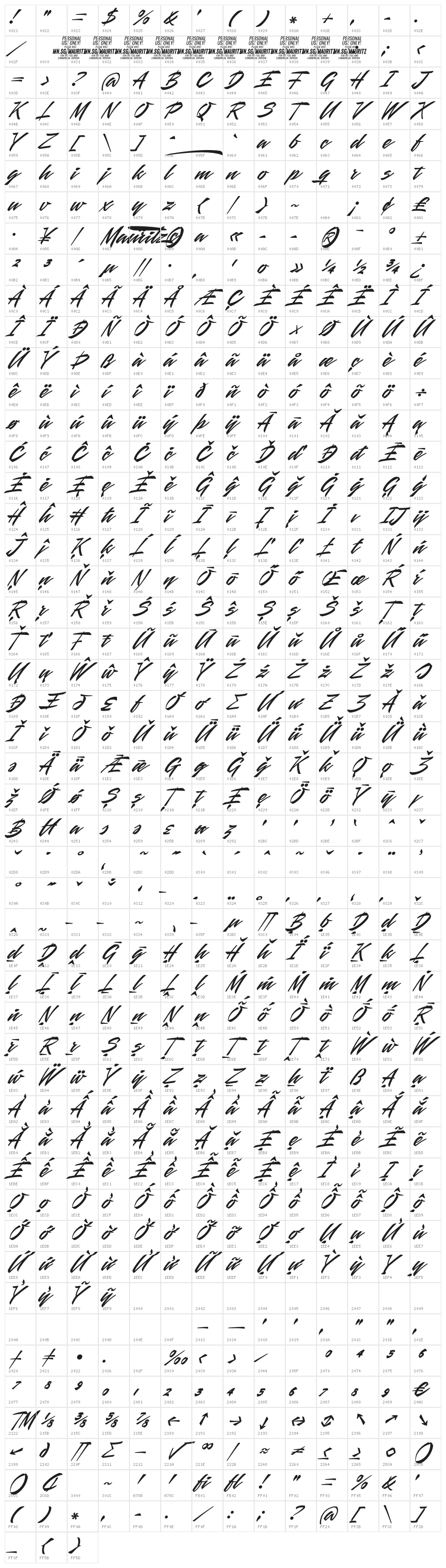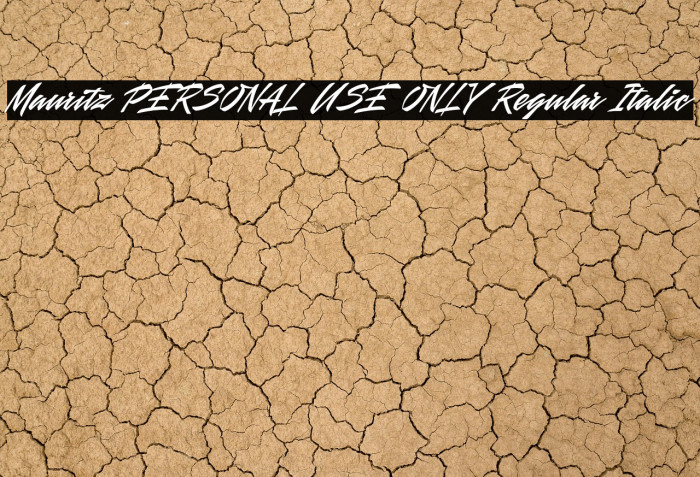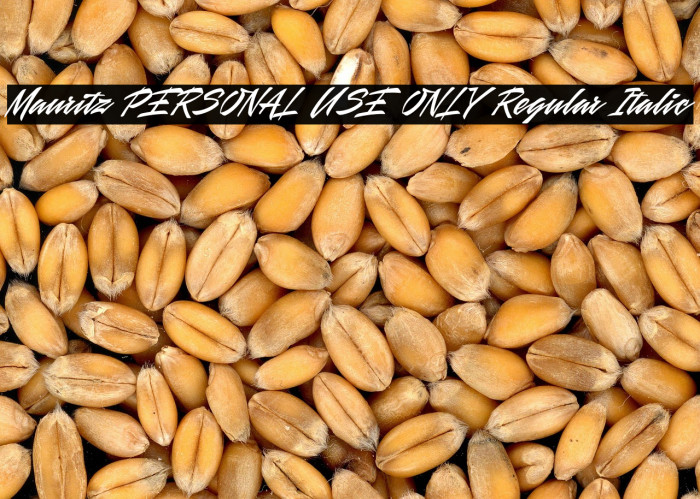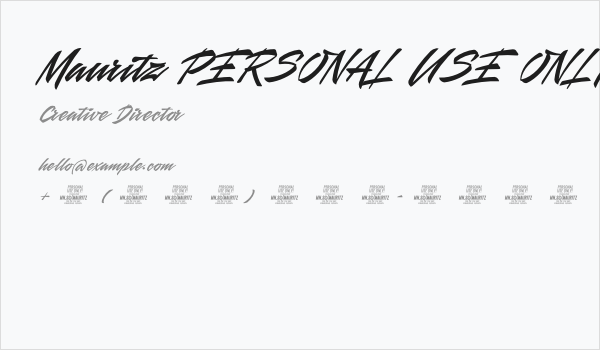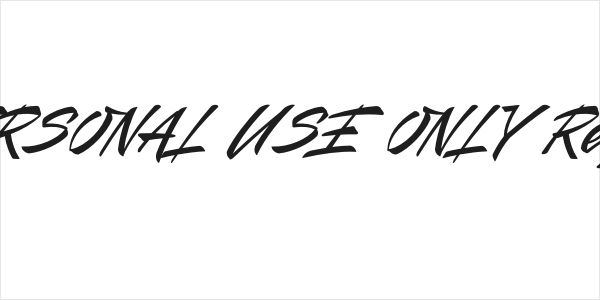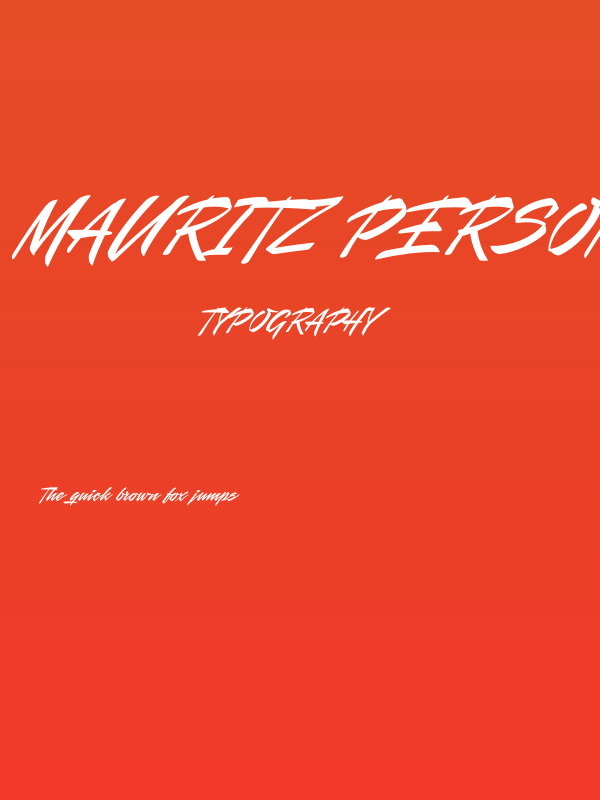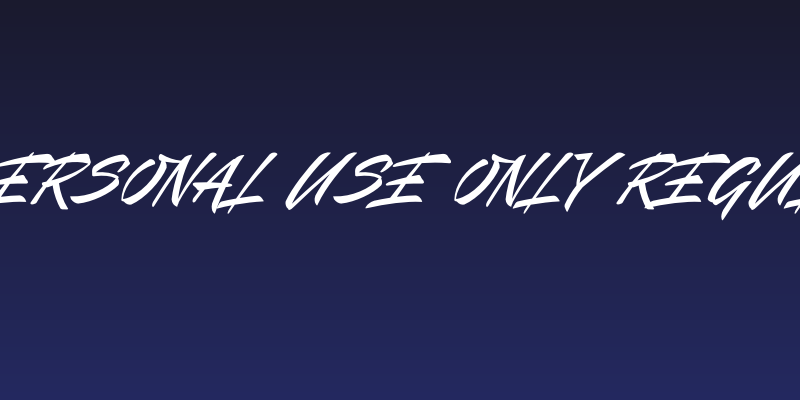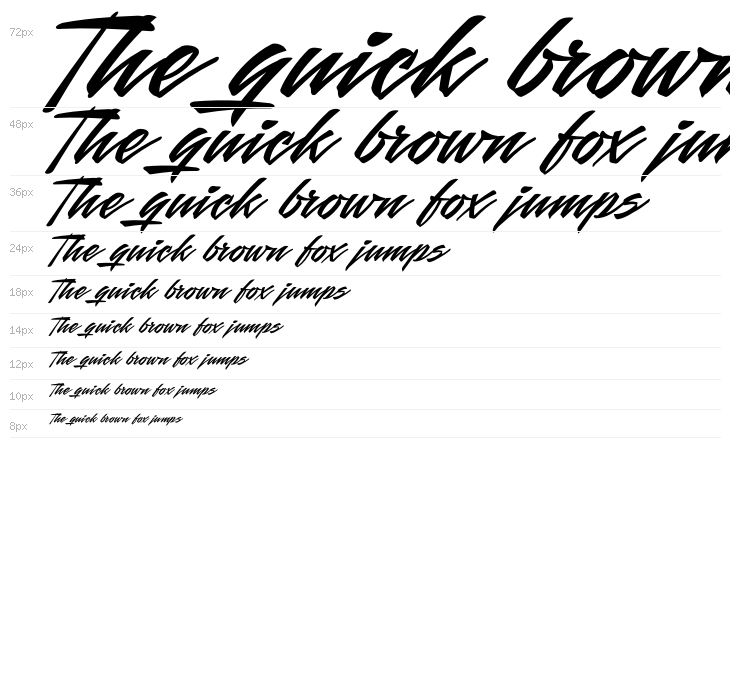
Mauritz PERSONAL USE ONLY Regular Italic Font
Mauritz PERSONAL USE ONLY Regular Italic Description
This font exhibits a dynamic and energetic script style, characterized by its bold and flowing letterforms. The strokes are thick and expressive, with a noticeable slant that adds a sense of movement and urgency. The uppercase and lowercase letters maintain a consistent style, with exaggerated curves and sharp angles that give the font a modern and edgy appearance. The special characters and numerals are designed to match the overall aesthetic, ensuring a cohesive look across all text elements. This font is ideal for projects that require a strong visual impact and a touch of personality.